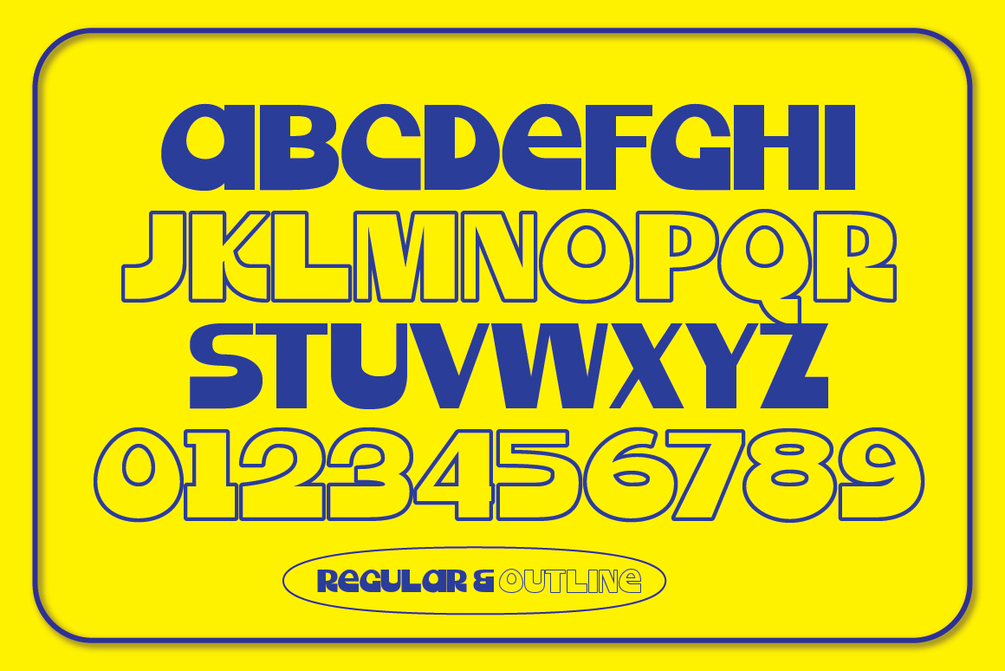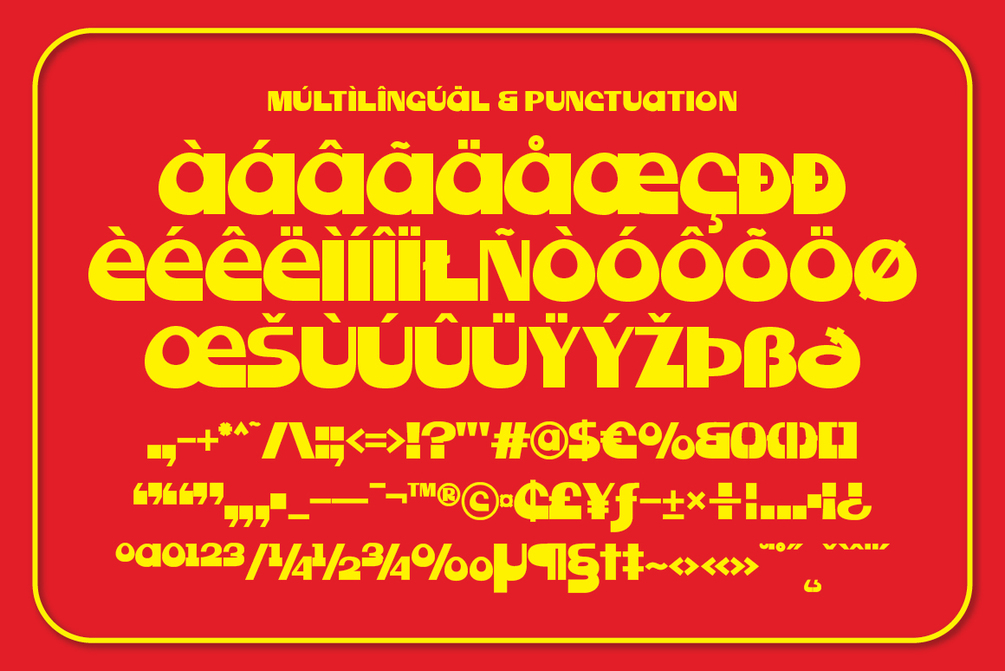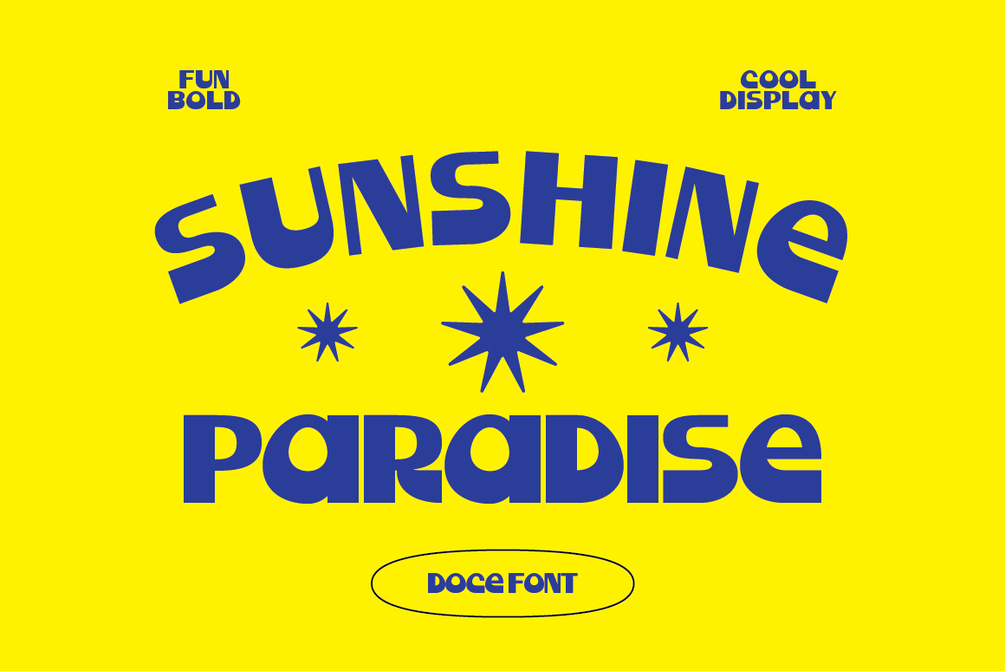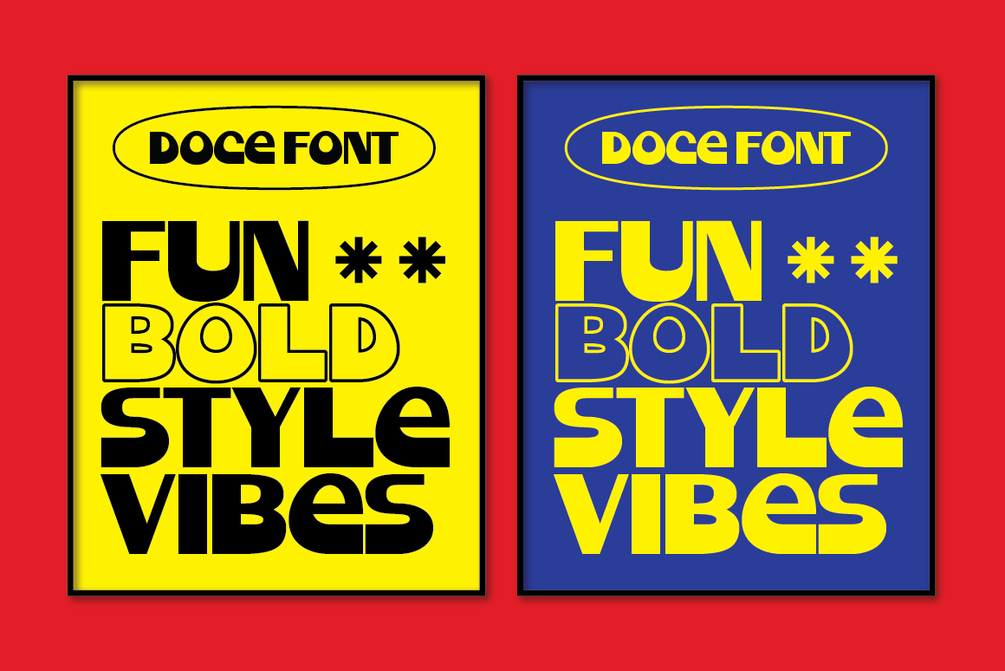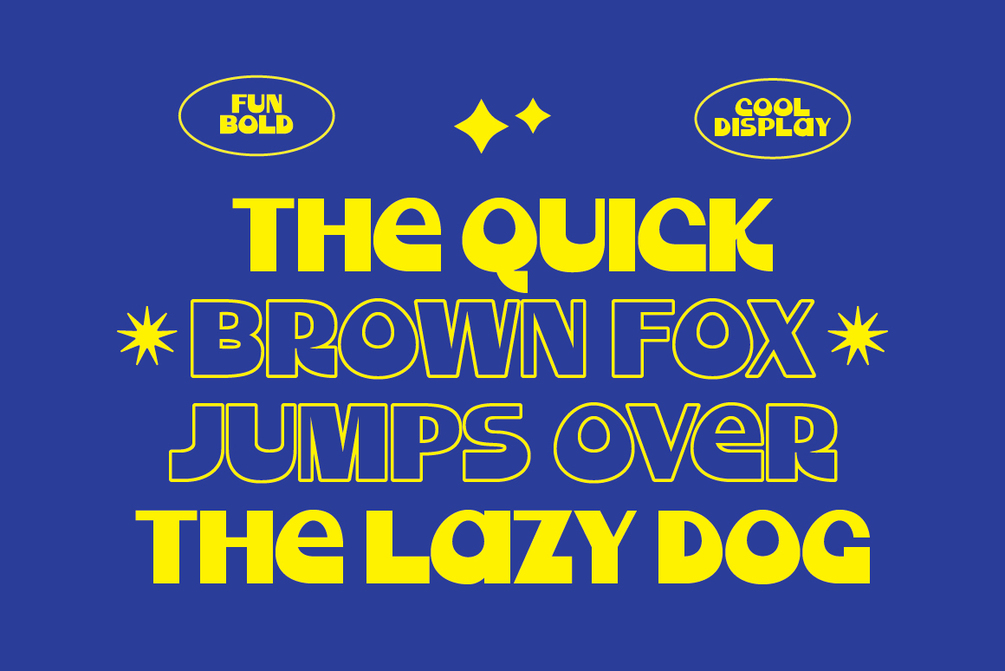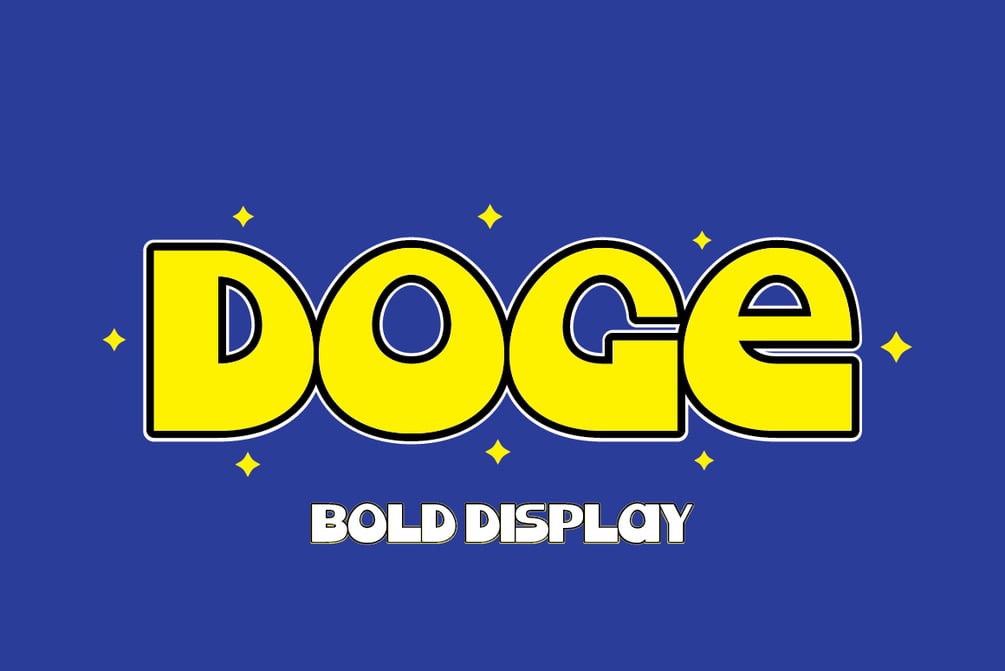
Doge Font
Doge is a fun, chubby geometric display font that brings a sense of positivity and sweetness. Its soft curves and bold structure make it perfect for food brands, cafe logos, packaging, and creative posters. Blending nostalgic retro shapes with modern minimal style, Doge creates visuals that feel cheerful while staying clean and fresh.